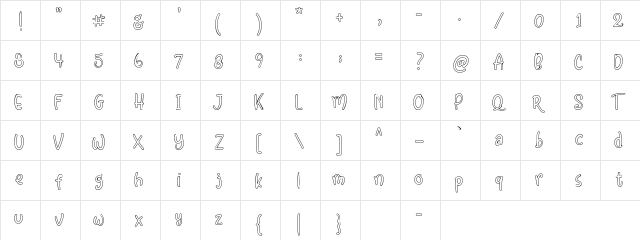
Little Clusters Outline Demo Regular
Design Context for Little Clusters Outline Demo Typeface
Little Clusters Outline Demo brings ornamental detail and strong personality to headlines and identities, where visual impact matters more than quiet functionality.
Font Pairing: Pair with a clean neutral sans-serif for body copy to let Little Clusters Outline Demo's character lead without overwhelming the composition.
Pro Tip: Use Little Clusters Outline Demo exclusively at display sizes — it was designed to be seen, not read at length. Let a neutral companion handle body copy.